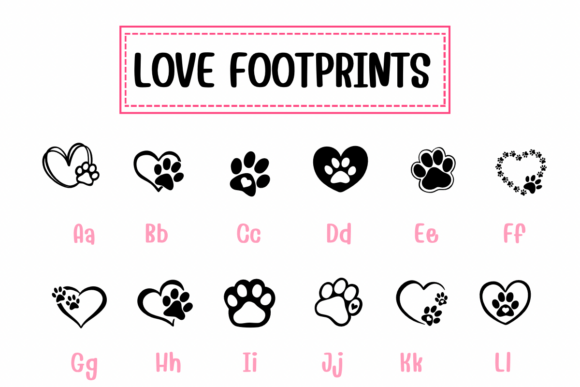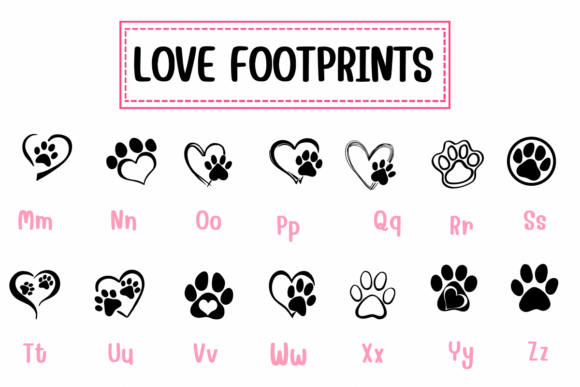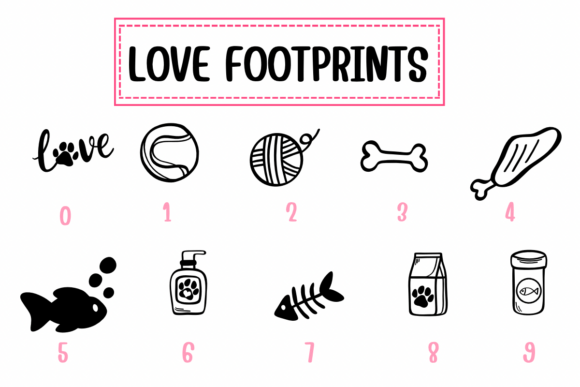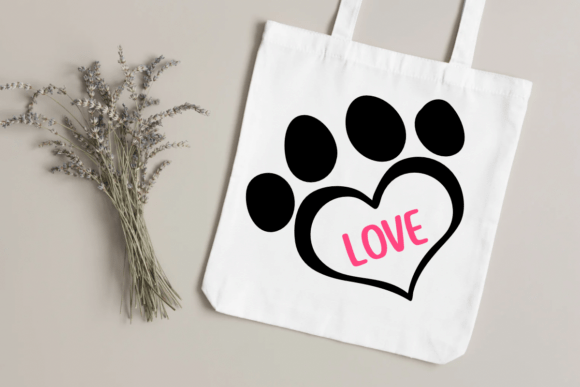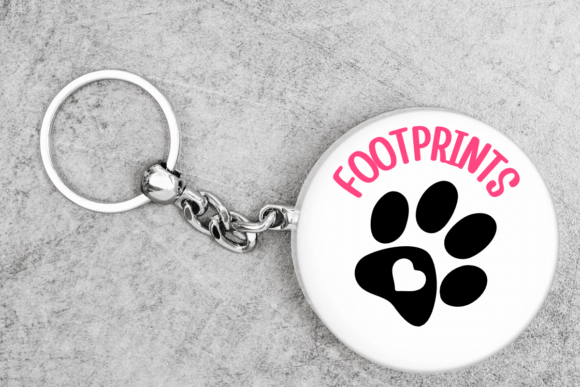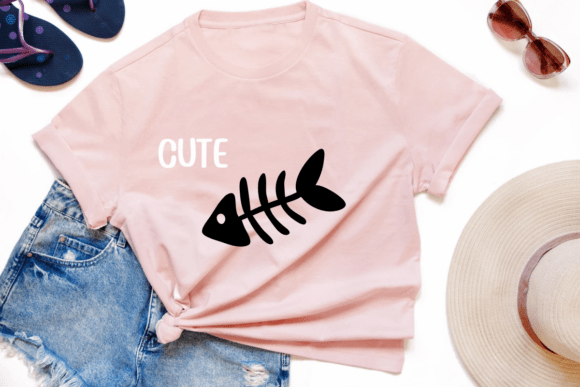
Introduction to Love Footprints Font
Have you ever stumbled upon a design element that instantly sparks creativity and makes you want to dive in and start crafting? For me, that moment often comes when I’m brainstorming ideas for special occasions like weddings or anniversaries. Recently, I discovered the enchanting Love Footprints Font, a dingbats font that perfectly captures the essence of love and sentimentality.
What I love most about this font is its versatility and high-quality design. With a transparent background, it’s perfect for adding a personal touch to your creative projects, from DIY crafts and decorations to logos and wedding invitations. Whether you’re a seasoned designer or a crafty enthusiast, Love Footprints Font is a valuable design resource that’s sure to inspire your next project.
Key Features of Love Footprints Font
- Unique, hand-drawn design with a romantic and whimsical feel, perfect for creative projects.
- High-quality, transparent background images and scalable vector graphics (SVG) for easy customization.
- Can be used for various creative projects, including invitations, greeting cards, and wedding decorations.
- Perfect for designers and artists looking for a unique and eye-catching design element to add to their work.
Honest Review: Love Footprints Font
I recently had the chance to work with the Love Footprints Font, and I must say, it’s a fantastic addition to any design resource library. This font is perfect for creative projects that require a touch of whimsy and romance.
- What works well: ✨ The high quality of the font makes it a great choice for both digital and print projects. The font’s unique design and style add a personal touch to any design.
- What works well: ✨ The transparent background makes it easy to use in various design scenarios, from social media graphics to wedding invitations.
- ⚠️ The font may not be suitable for formal or professional projects, as it has a playful and romantic tone.
- ⚠️ The font’s uniqueness may make it difficult to pair with other fonts, so designers may need to be creative when combining it with other typography.
Overall, I’m thoroughly impressed with the Love Footprints Font. It’s a great addition to any design library, and I’m excited to see how designers will use it in their creative projects.
Tips for Getting the Most Out of Love Footprints Font
Experiment with different font sizes, colors, and arrangements to create unique and eye-catching designs. Combine Love Footprints Font with other design resources to add depth and visual interest to your projects.
Love Footprints Font is ideal for various creative projects, including wedding invitations, baby announcements, and social media graphics. Its high-quality, transparent background makes it perfect for overlaying on images or backgrounds, creating a visually appealing and professional look.